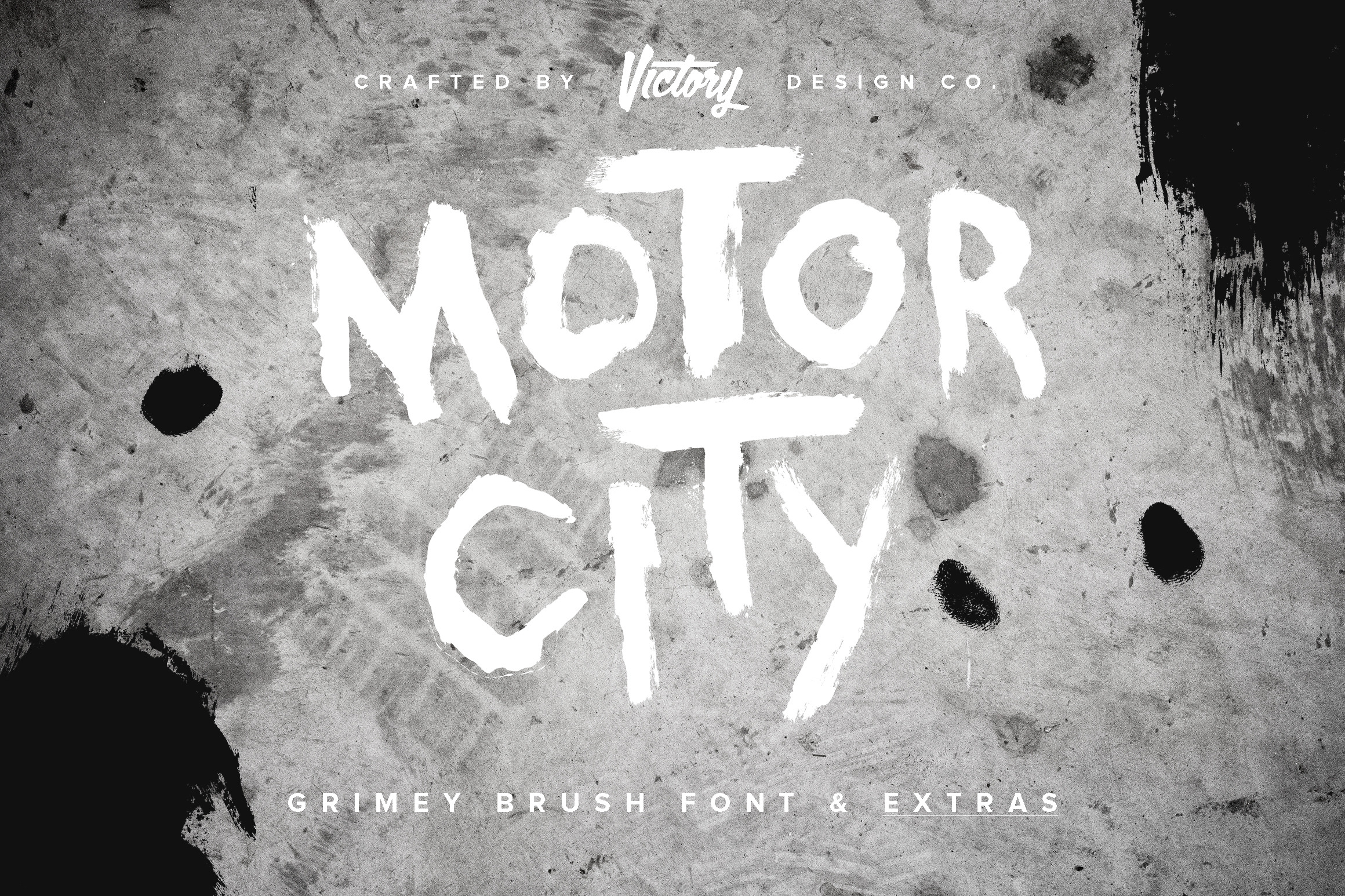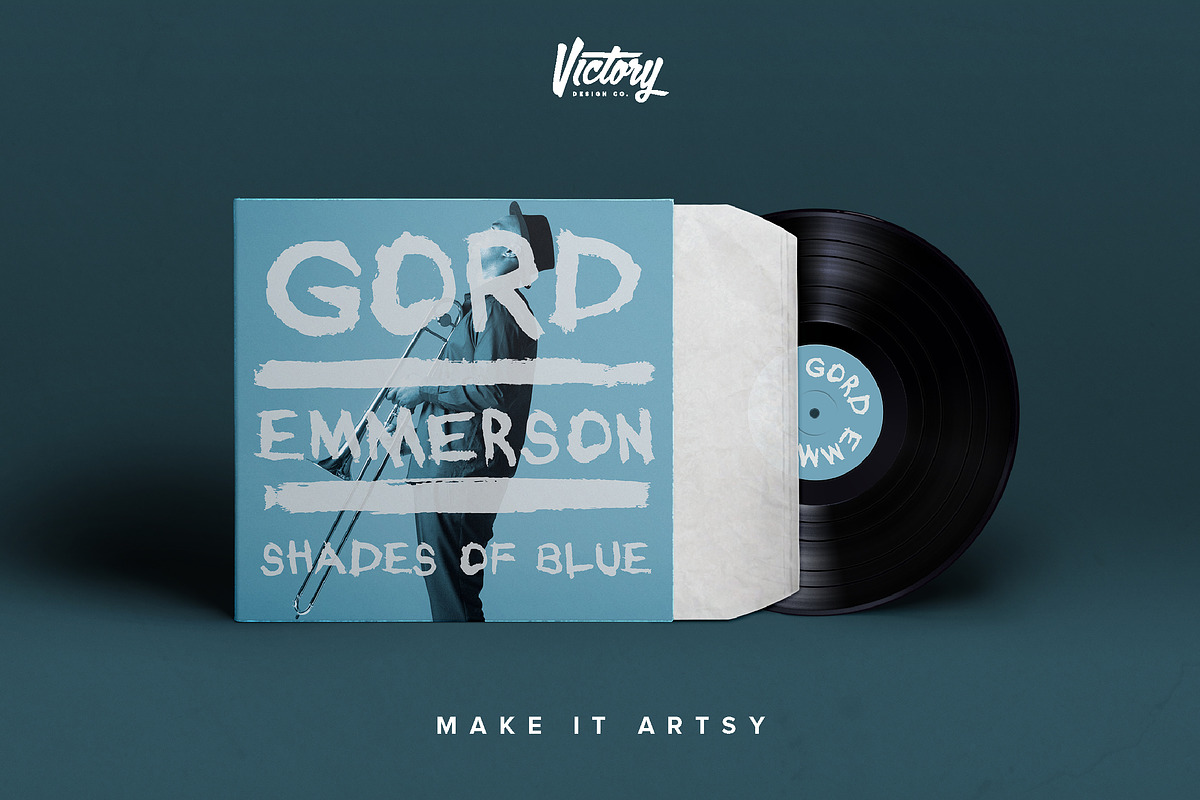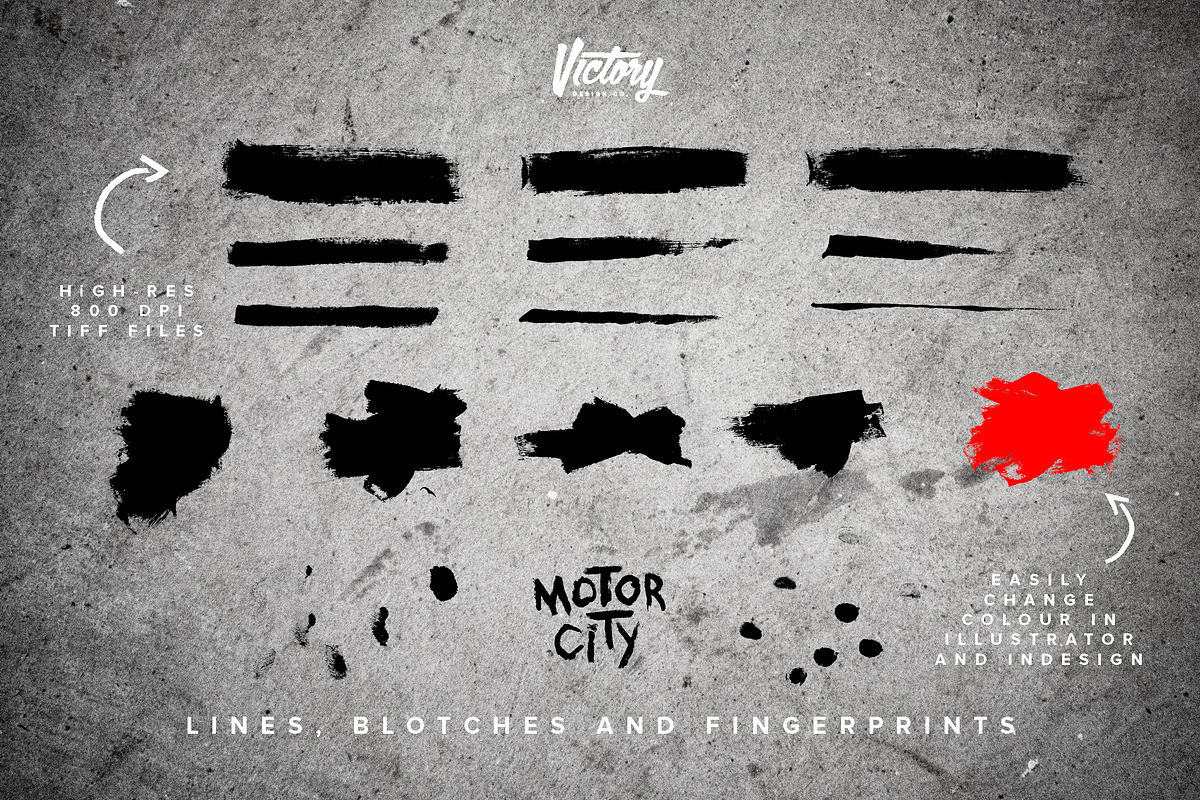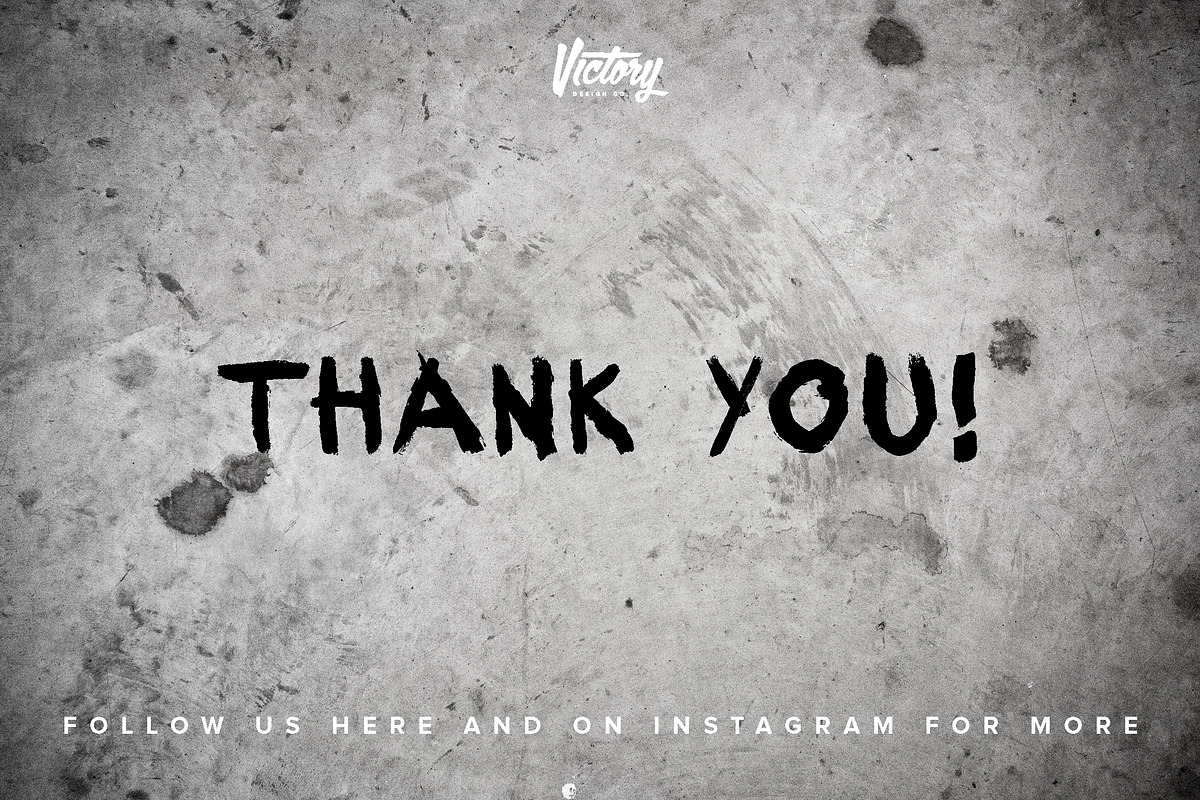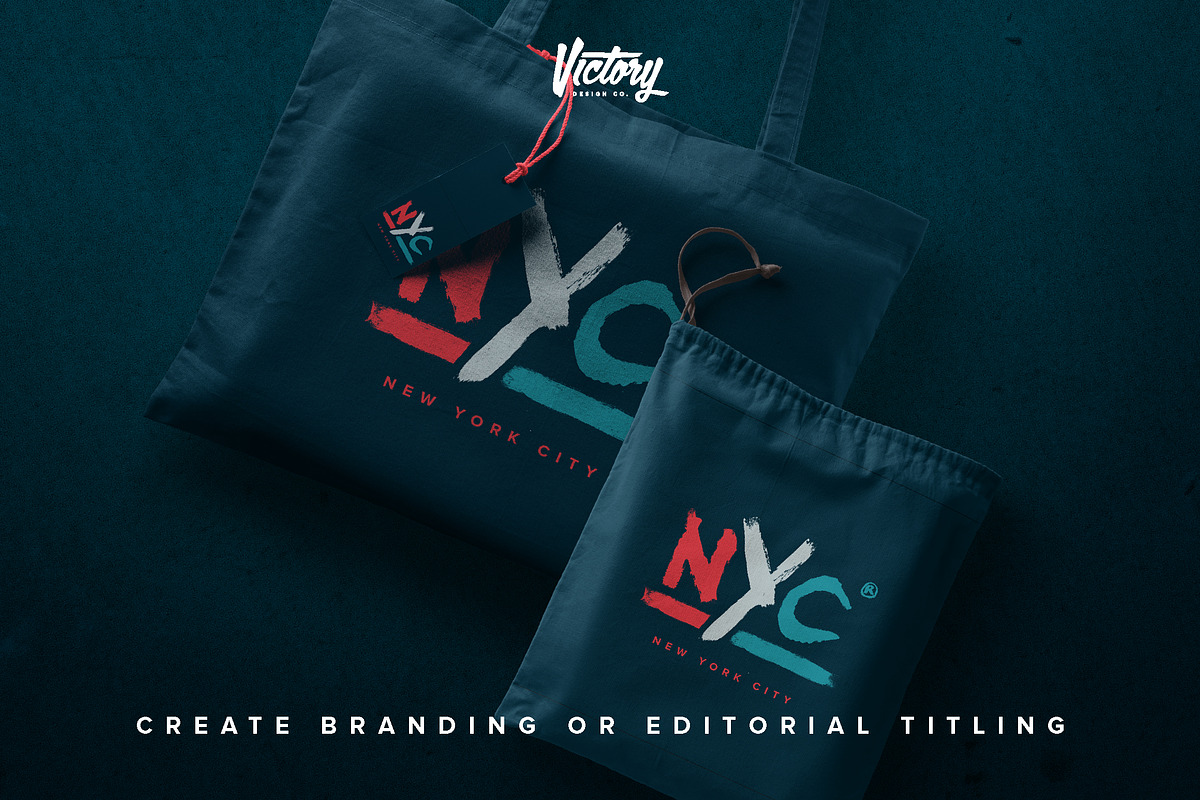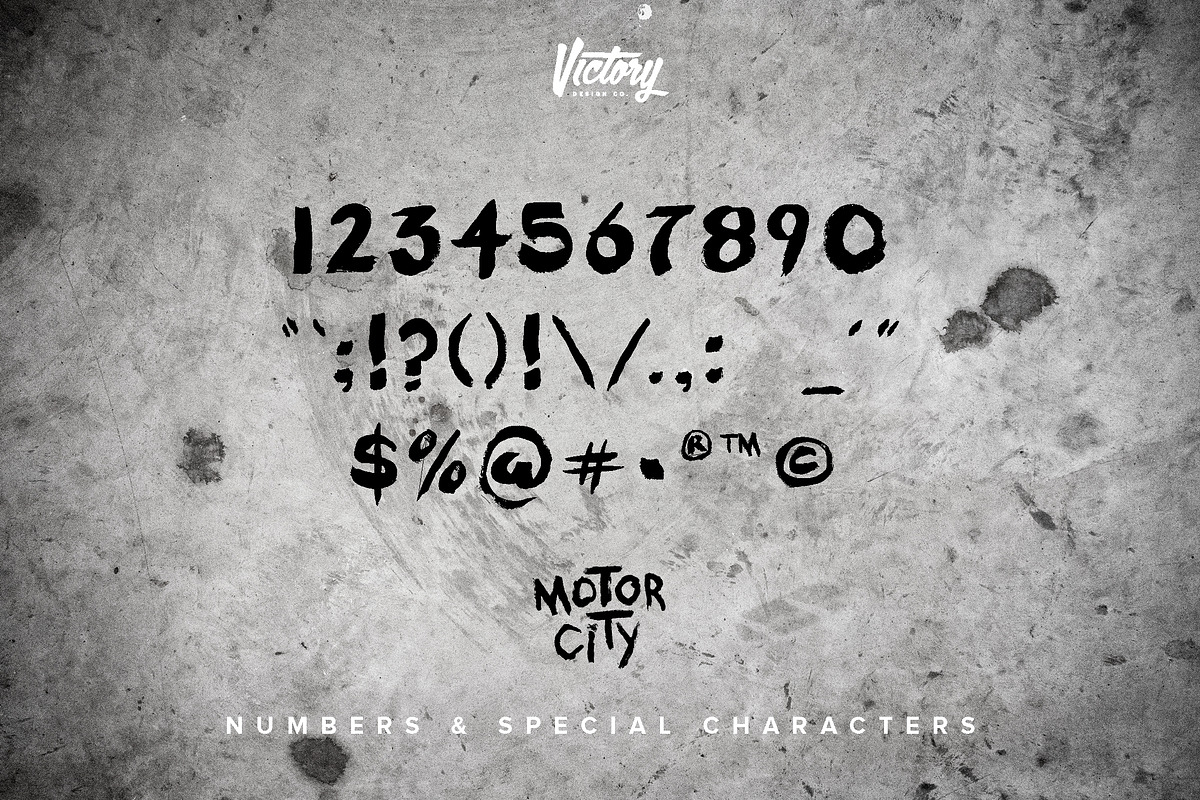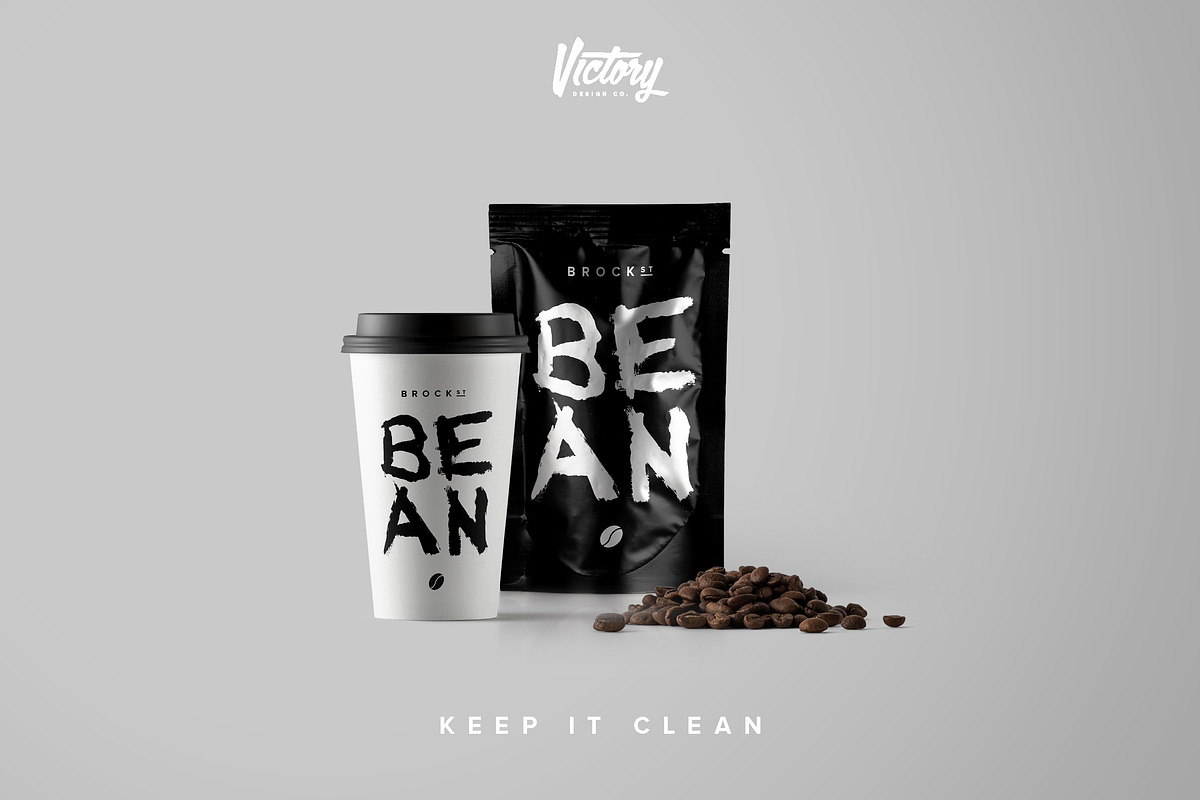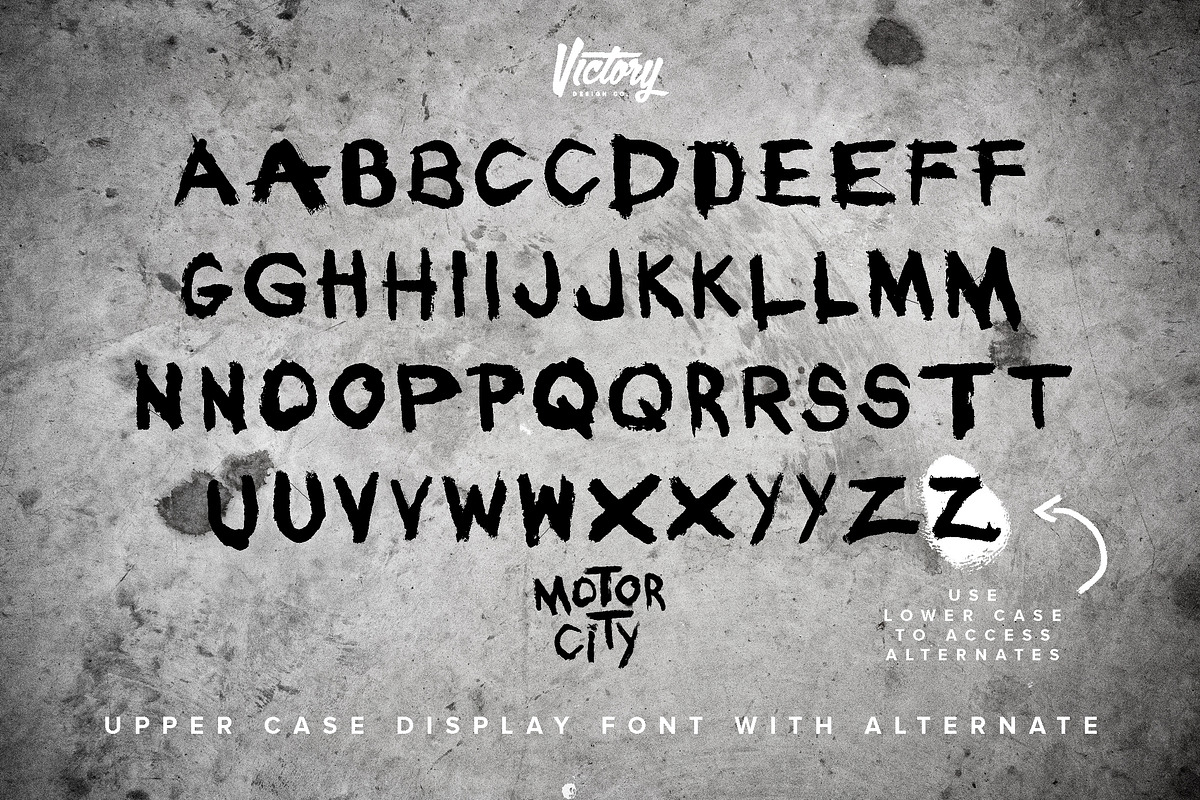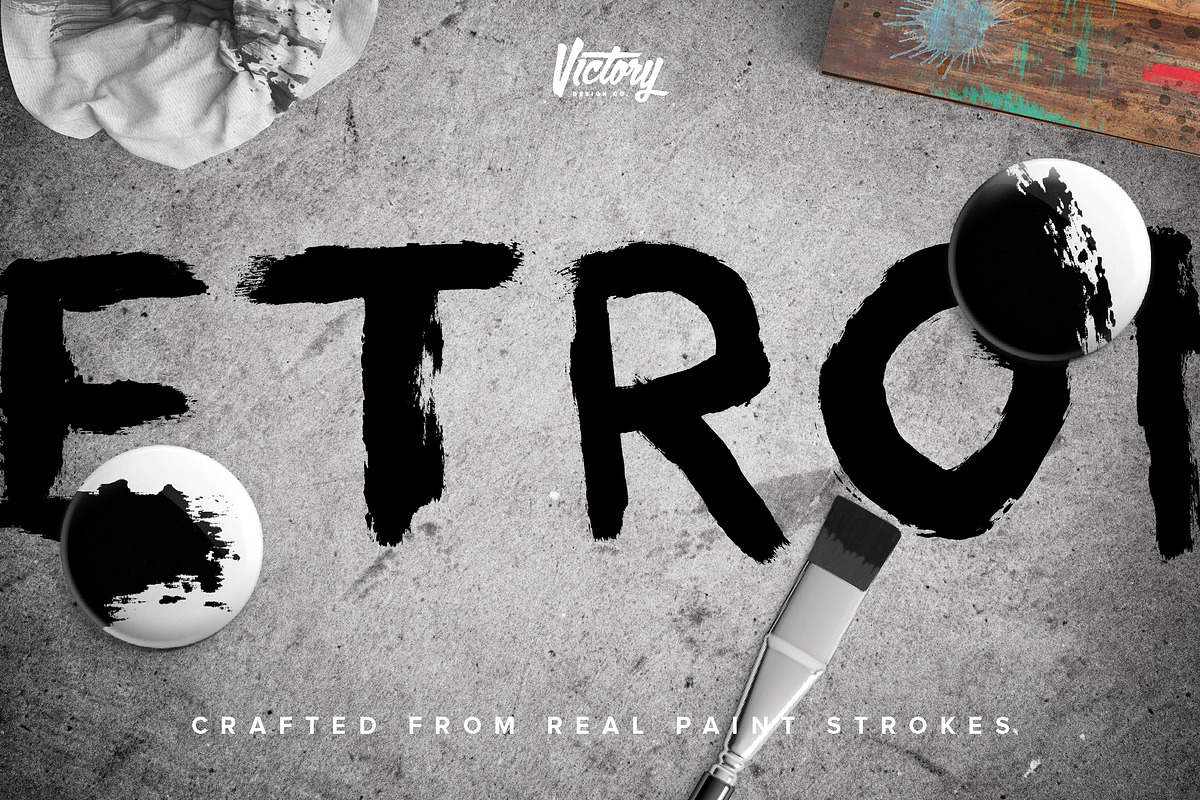
Grunge Font Hand Painted Motor City
Rough-Textured and Handmade OTF Brush Font - Crafted from Real Paint + TONS of Extras!
Motor City was inspired by Detroit and auto shops alike. Handmade using paint and paintbrushes in a rough random manner, Motor City will give a hand-crafted look and feel. The font is full of grimey character and personality. Motor City and all the extras will add character, style and personality to your next design or art project. An absolute asset in your font arsenal.
- OTF display font (all uppercase) with alternate characters and most extra english characters
OTF Font: Motor City has been offered in OpenType form and easily installed. The font is all upper case characters and alternates are accessed by holding shift or using the caps-lock. Also included are most western keyboard characters and all numbers.
With any typography layout, that is to appear handmade, you want to avoid two characters side-by-side that are exactly the same. For example TT could be typed Tt, with this font, which gives the two letters a unique look.